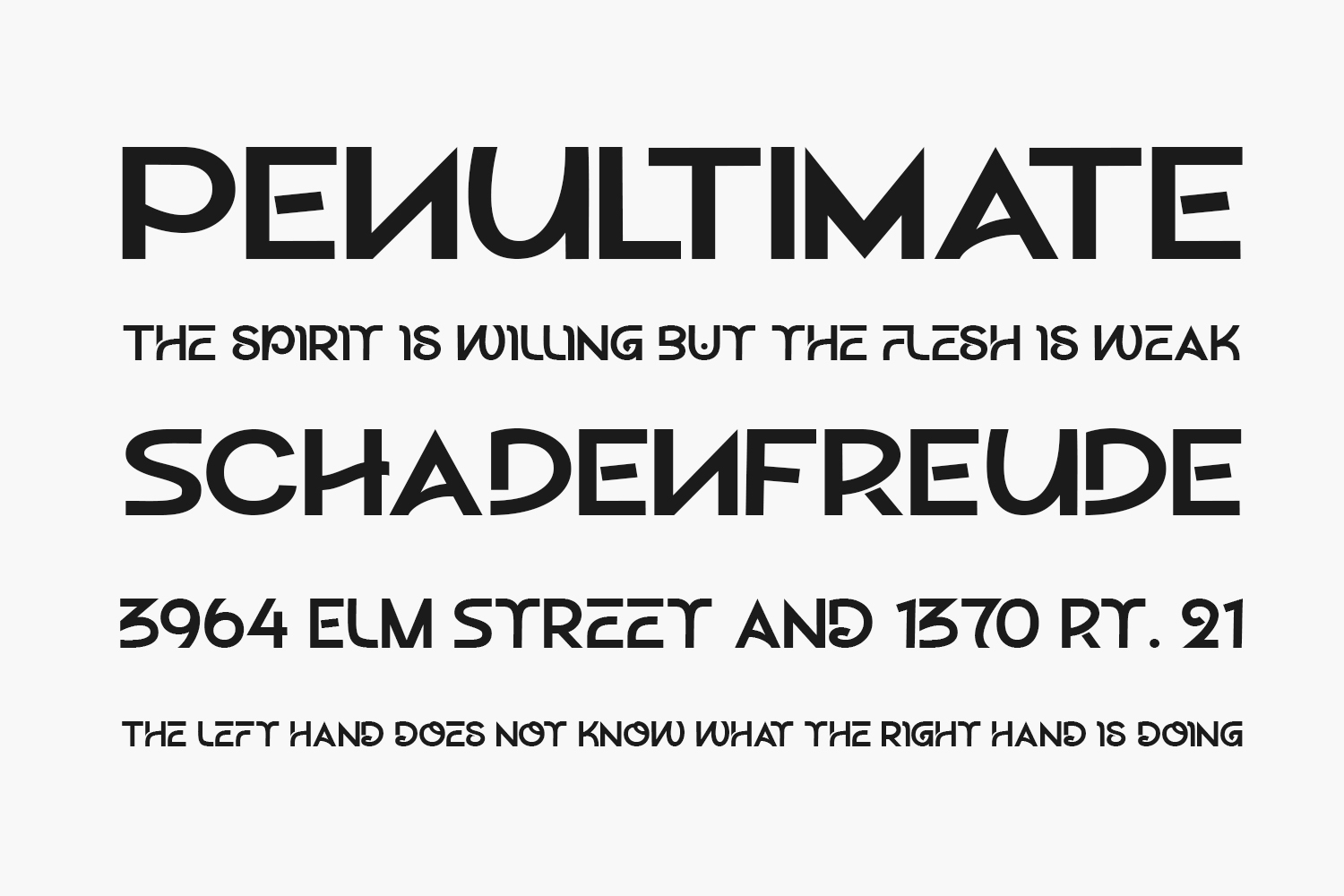
Thurkle Free Font is a vintage and distinct display font. No matter the topic, this font will be an incredible asset to your fonts’ library, as it has the potential to elevate any creation.
Designed by Grontype